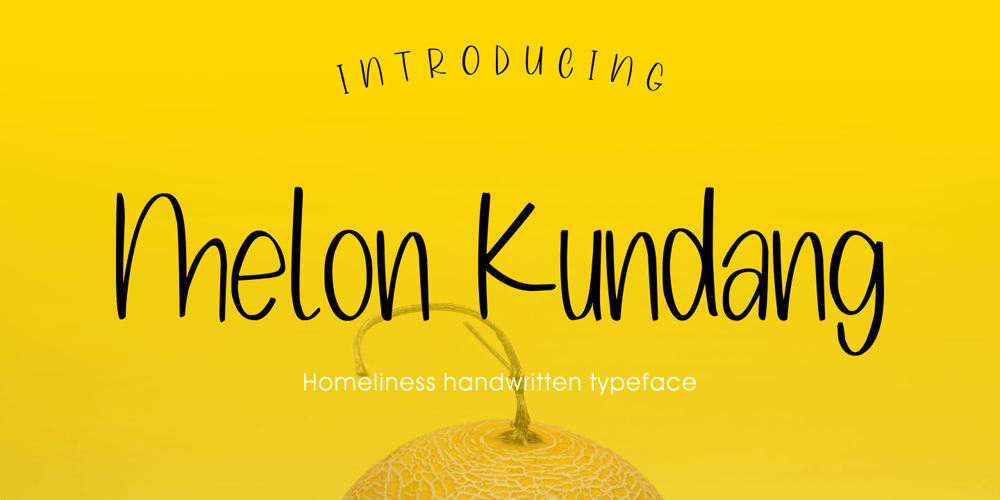
Melon Kundang Font Family was designed by Zamjump and published by Zamjump. Melon Kundang contains 1 styles and family package options. Melon Kundang its homeliness font, very simple and very easy to remember with distinctive hand strokes! This font would be perfect for party invitations, quotes, t-shirts, birthday cards, product packaging and more.• lowercase and uppercase• Includes numbers and punctuation